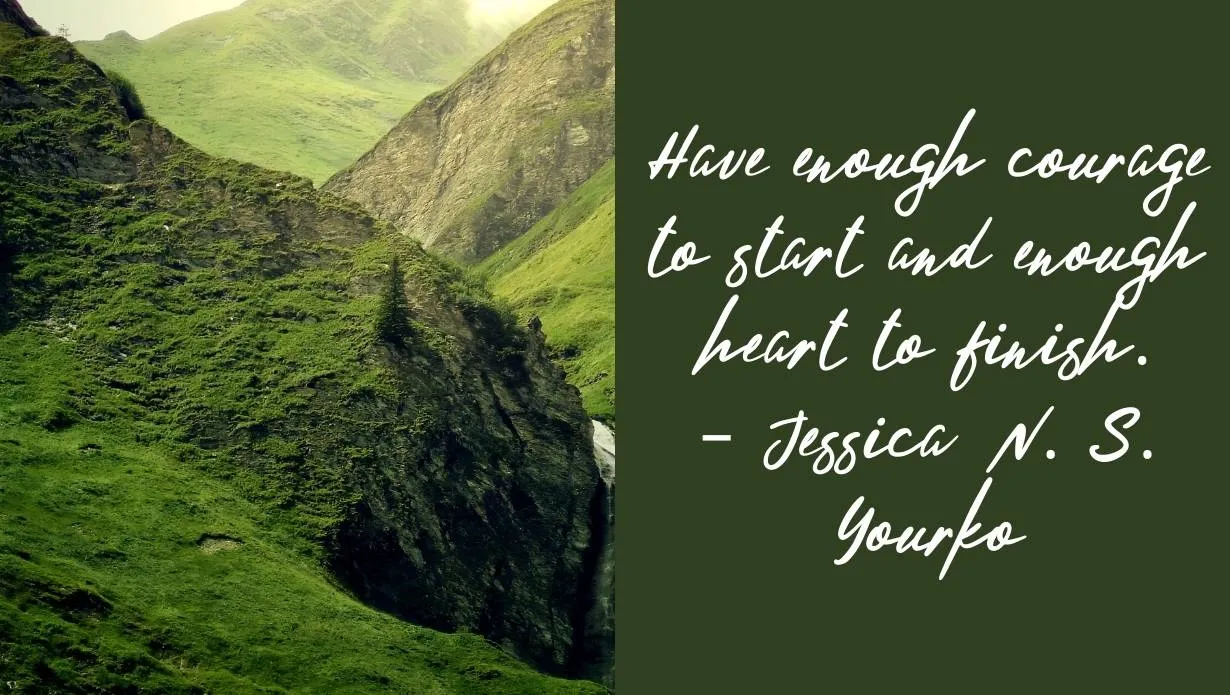
Welcome, We are presenting the most elegant and beautiful font that has a clear texture and appearance named Chicken Font. This font belongs to the family of script typefaces. This typeface is designed by famous graphic designer Hyee Gun. This font is published under the banner of the Letteralle Studio foundry. The release year of this amazing typeface is 2018.
| Name | Chicken Font |
| Designer | Hyee Gun |